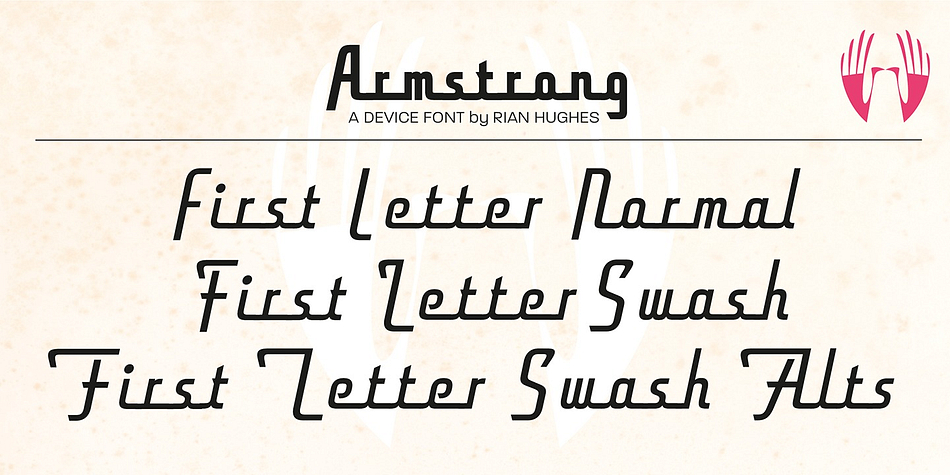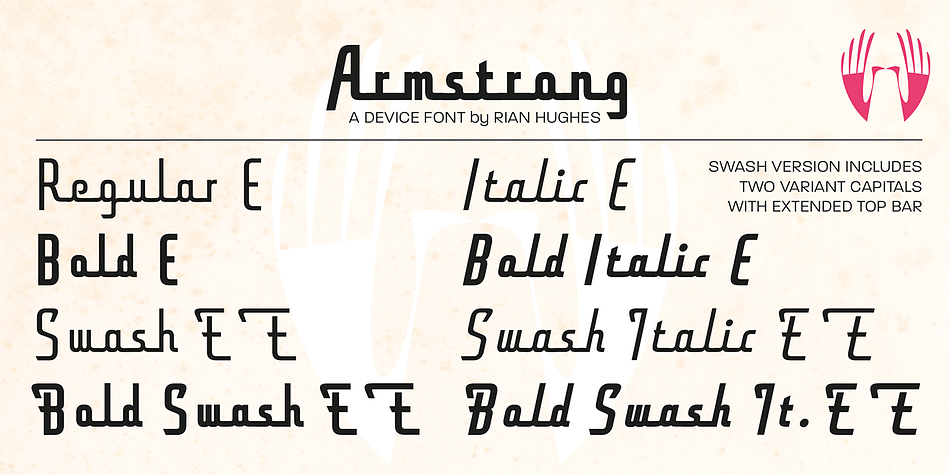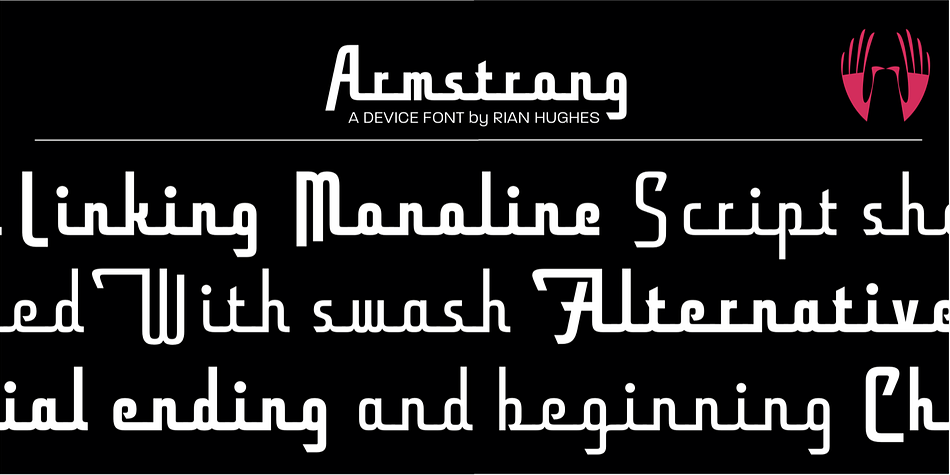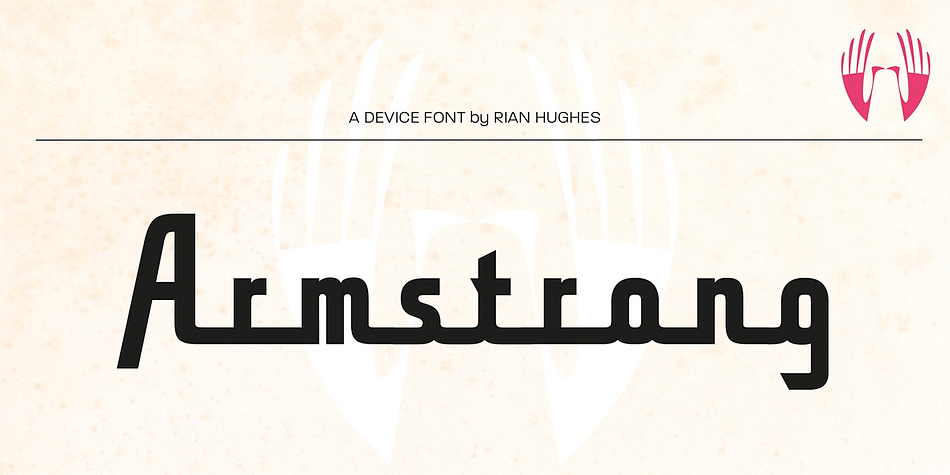
Designed by Rian Hughes, Armstrong is a retro and script font family. This typeface has eight styles and was published by Device.
An elegant geometric linking script that uses OpenType programming to intelligently substitute “beginning” and “ending” characters with uniquely designed variants. The family also includes swash alternates that can be toggled on or off in the Opentype panel. (Note: Please view the image above for correct end and beginning letters as they will appear in Indesign, Illustrator, etc. The Myfonts previews below are not Opentype savvy, and so these specially designed versions do not substitute themselves.)